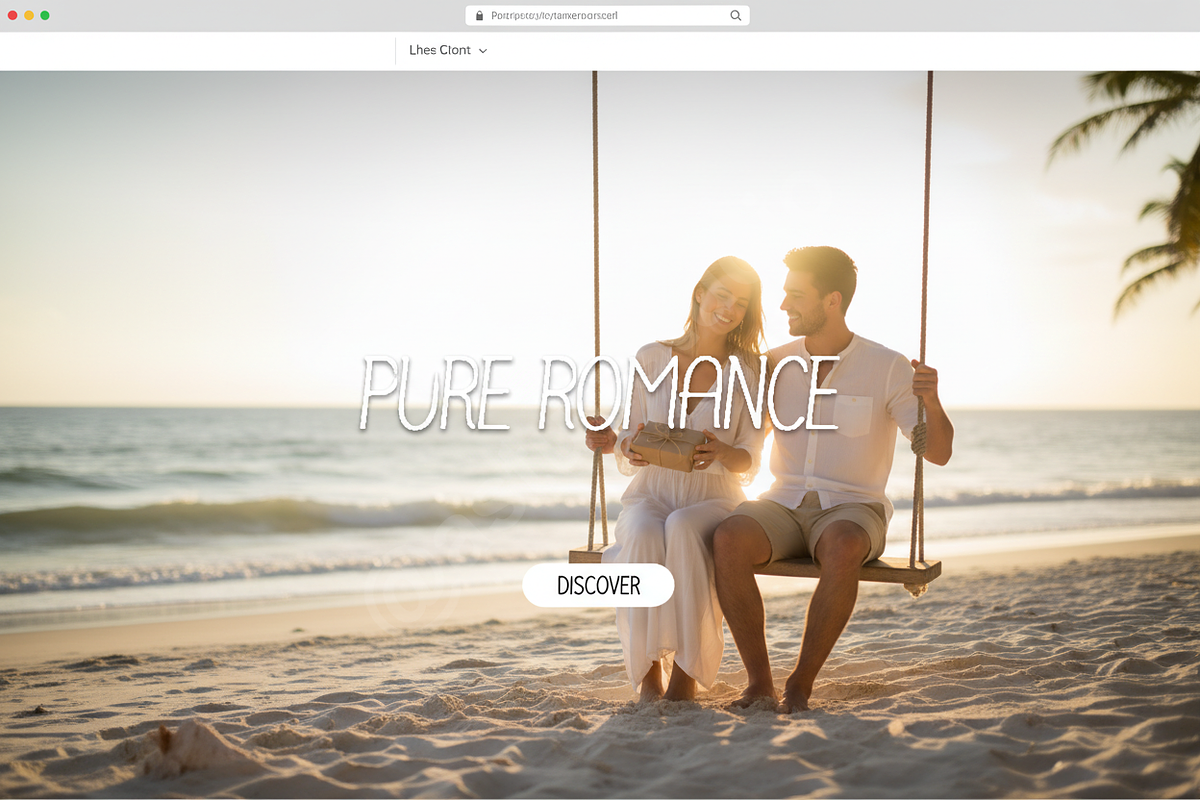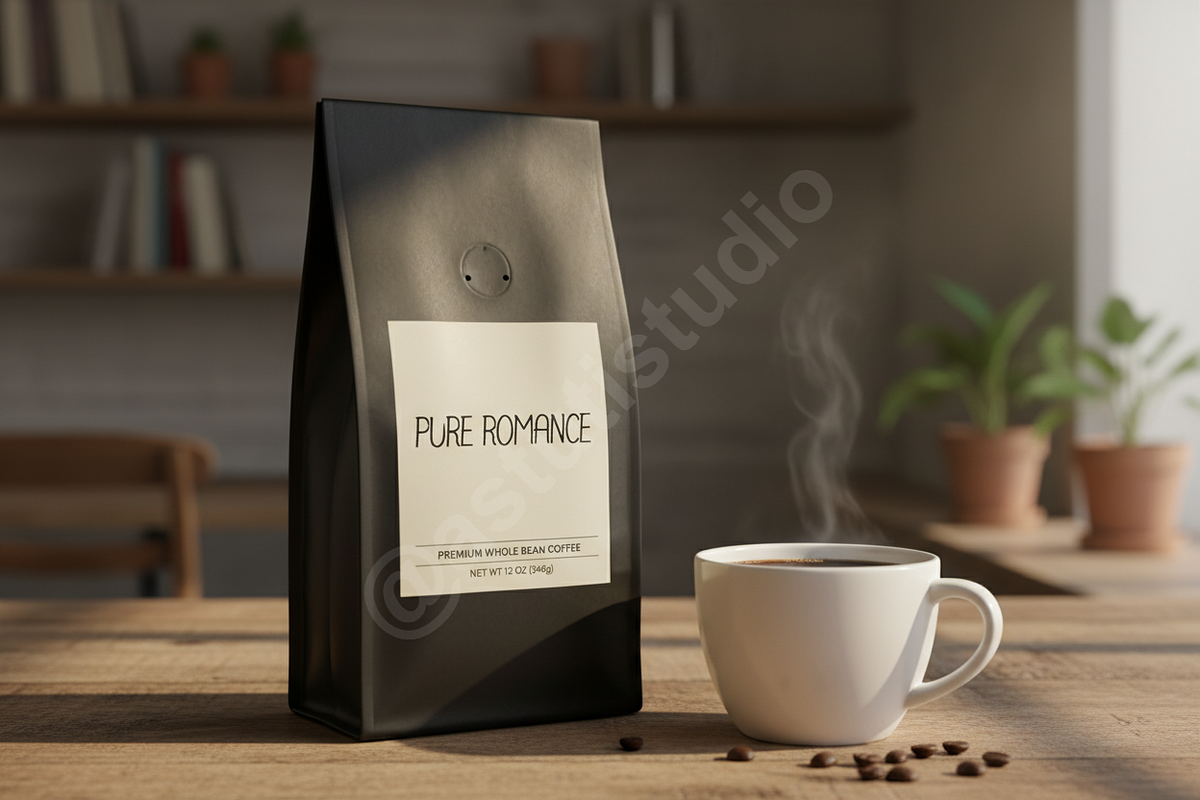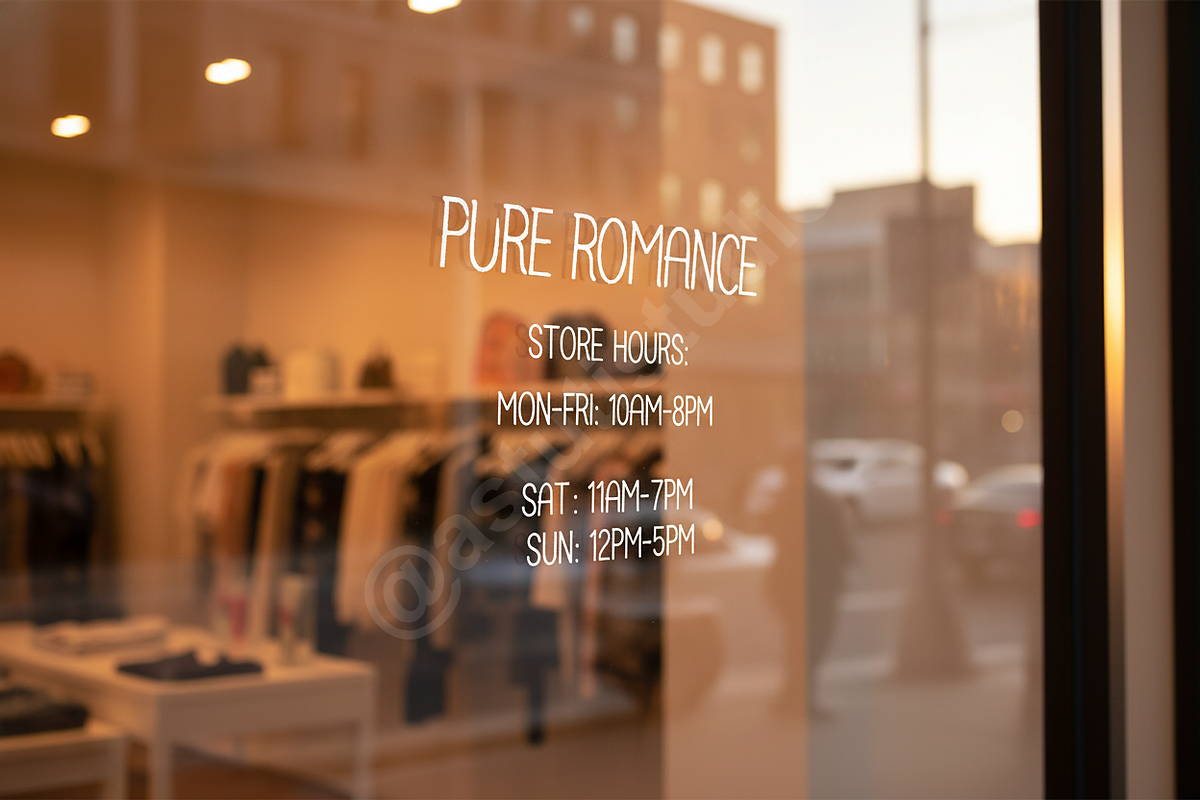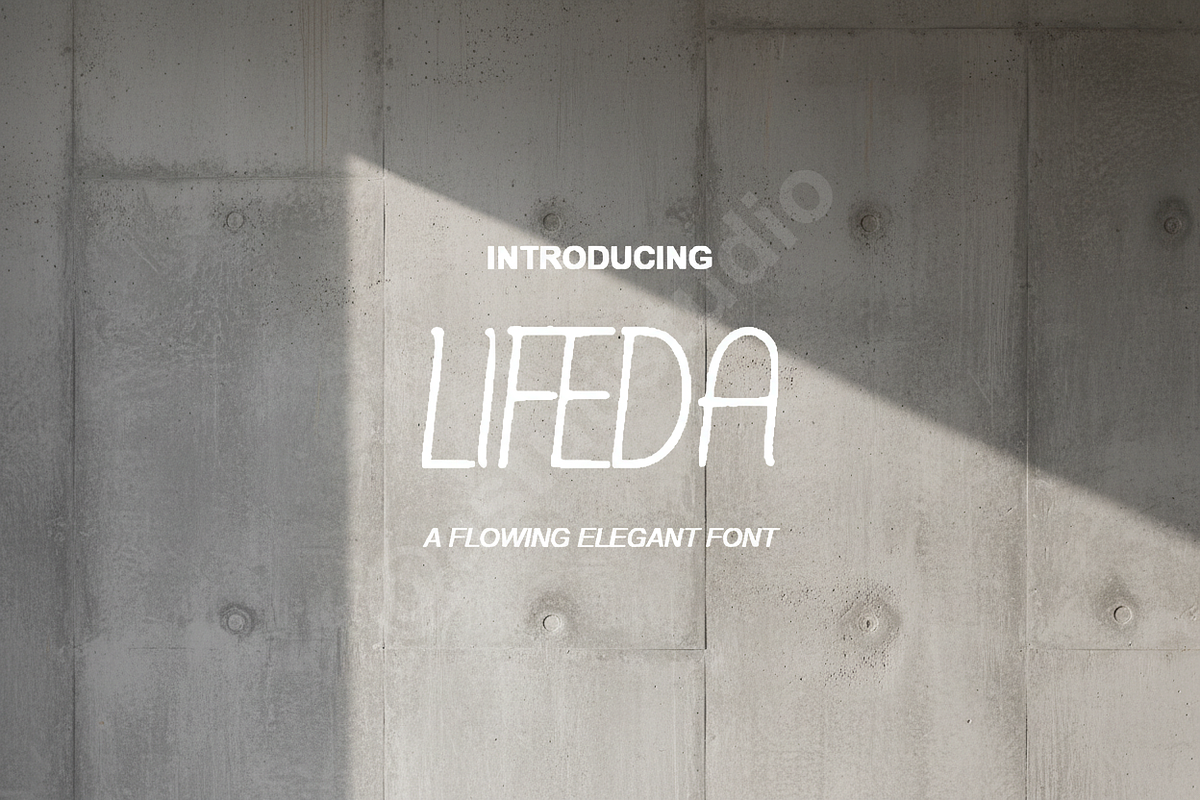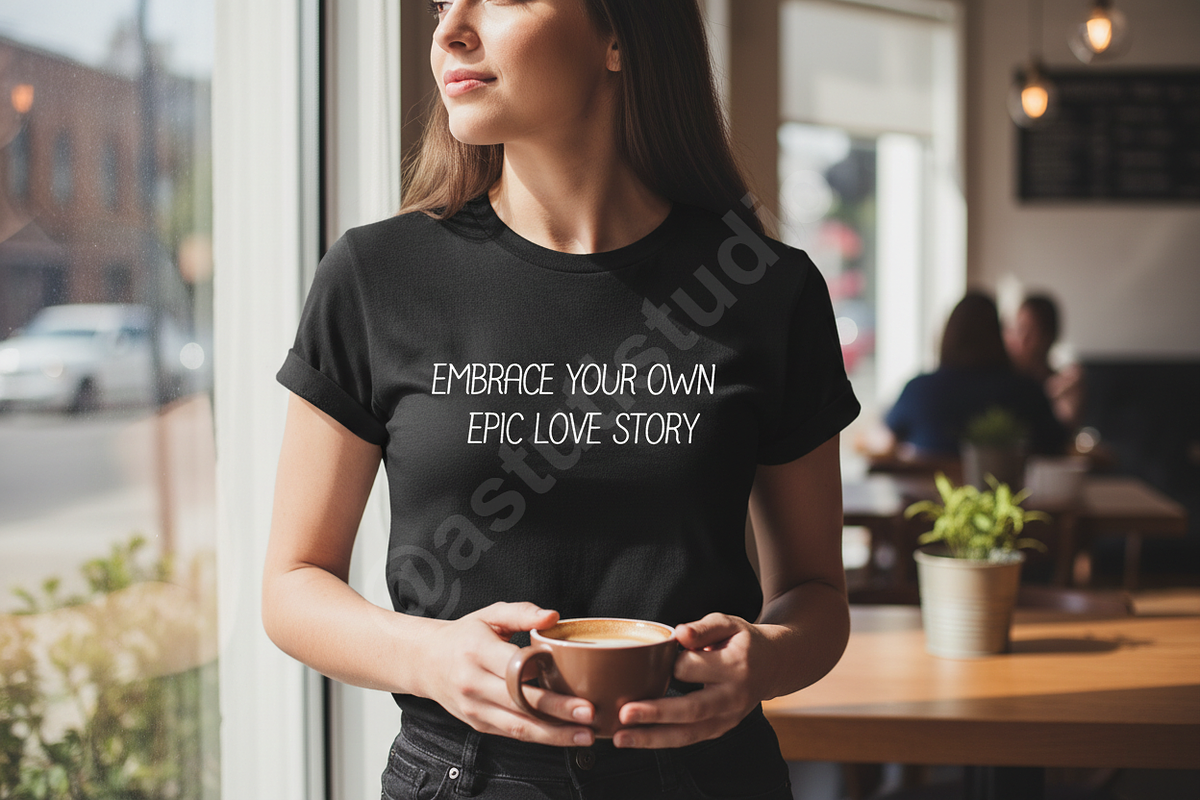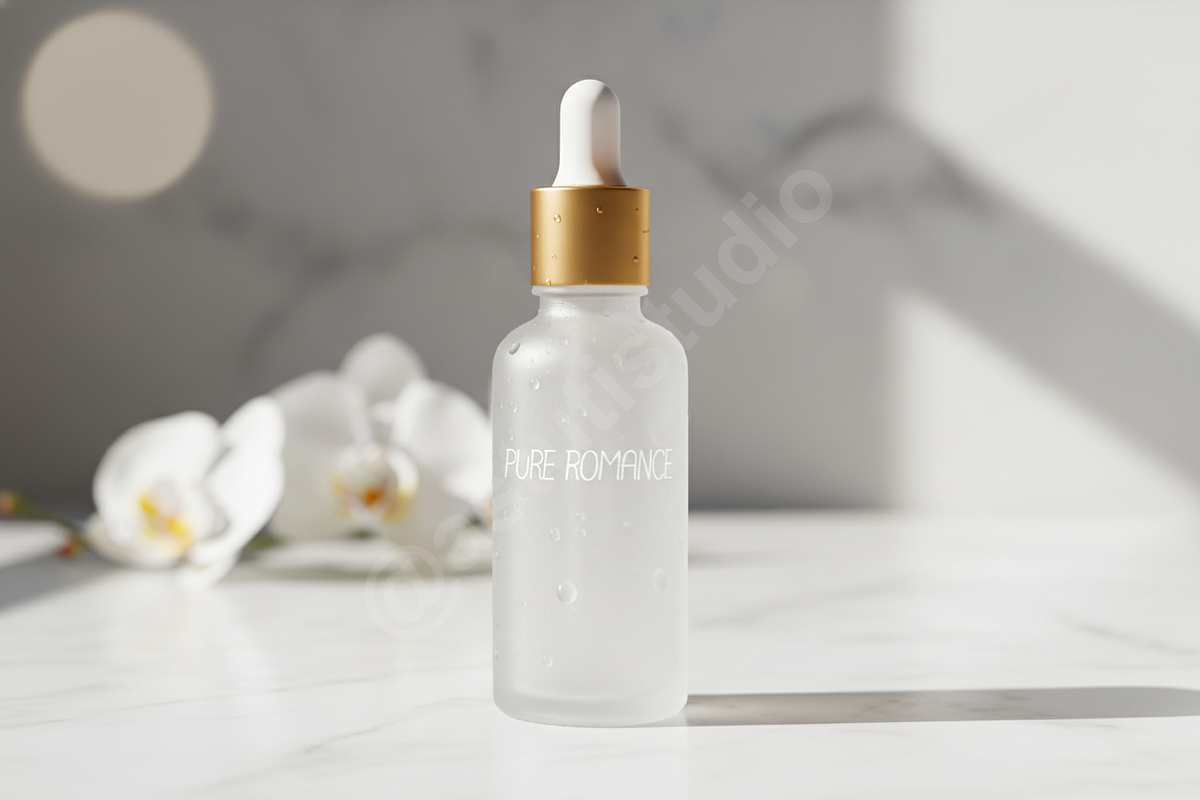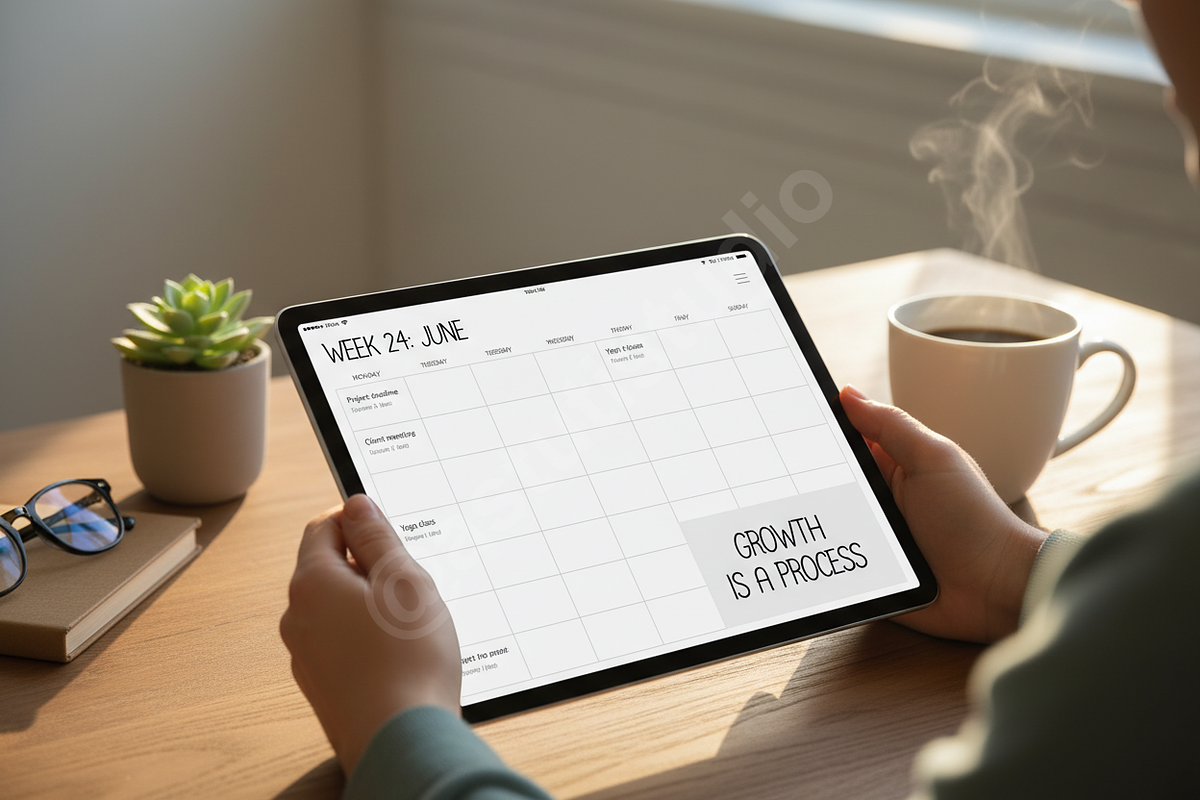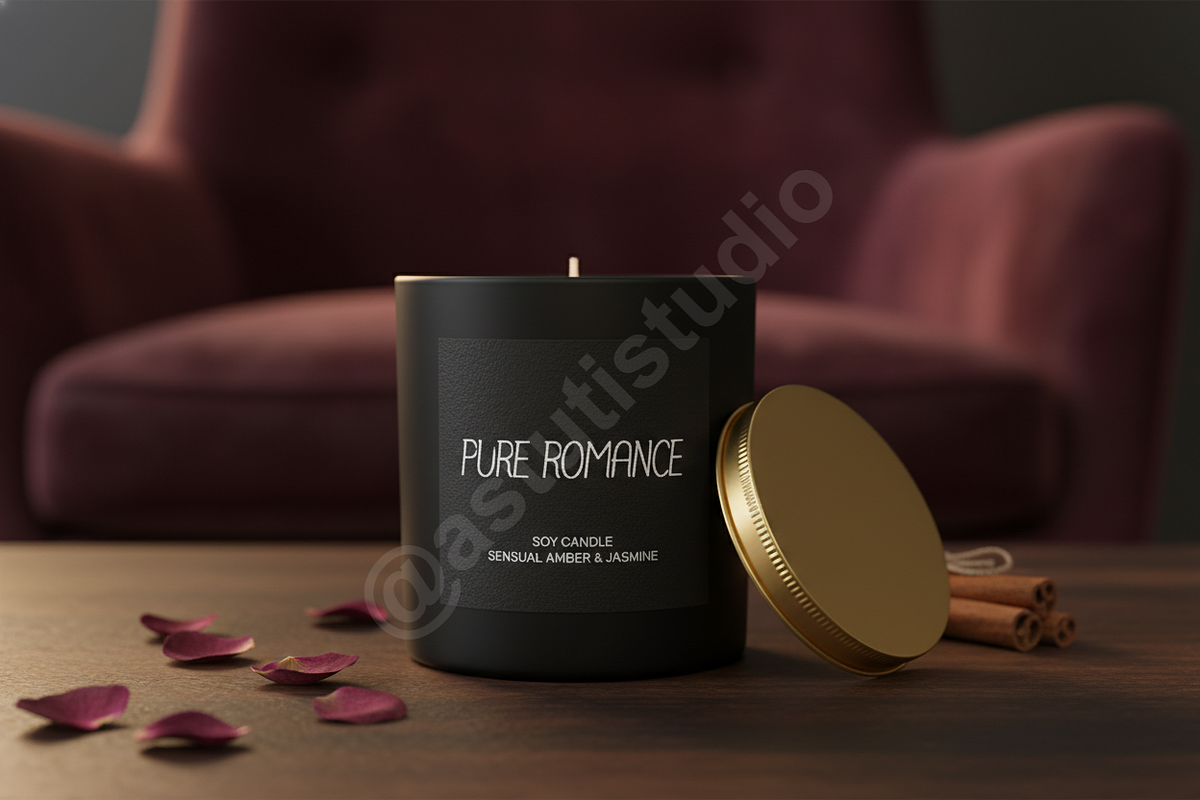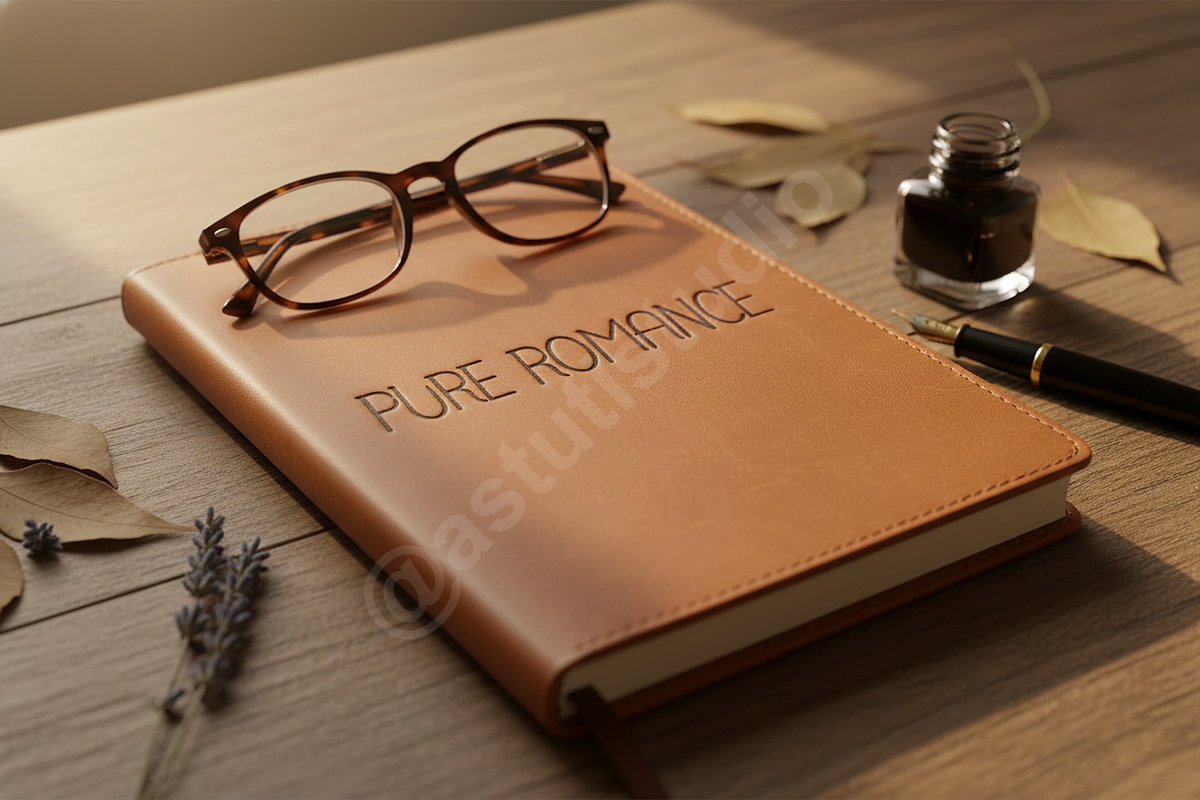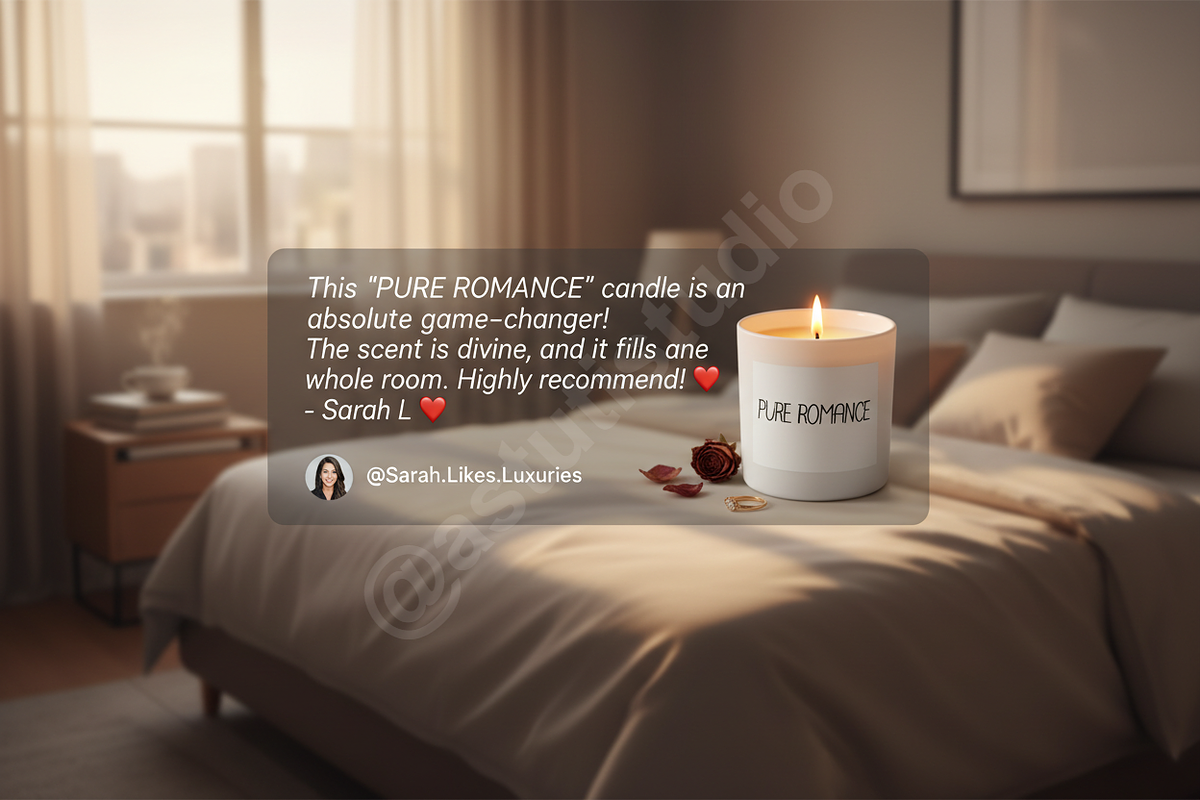
Lifeda | Elegant Modern Serif Typefa
INTRODUCTION Lifeda is a refined serif typeface meticulously crafted for the modern aesthetic. With its high-contrast strokes and elegant proportions, Lifeda embodies the spirit of luxury branding and high-end editorial design. This premium font captures a perfect balance between classic sophistication and contemporary minimalism, making it an essential tool for designers seeking a timeless look.
- Optimized for luxury branding, fashion magazines, and high-end editorial layouts.
- Includes a vast range of ligatures and stylistic alternates for custom compositions.
- High-contrast lines provide a sharp, premium feel at any scale.
- Comprehensive multilingual support for international projects.
- Clean and legible glyphs for both print and digital platforms.
- Over 60 unique ligatures and decorative alternates
- Full character set including uppercase, lowercase, numbers, and punctuation